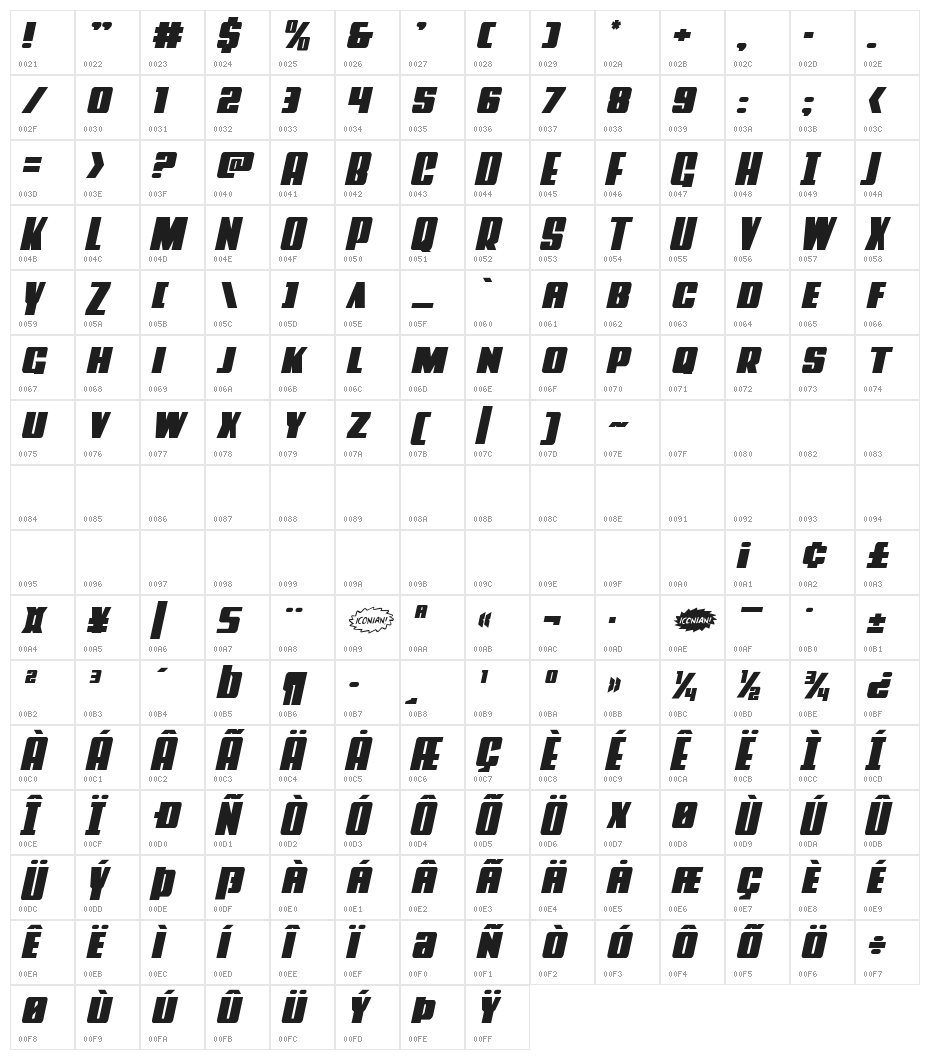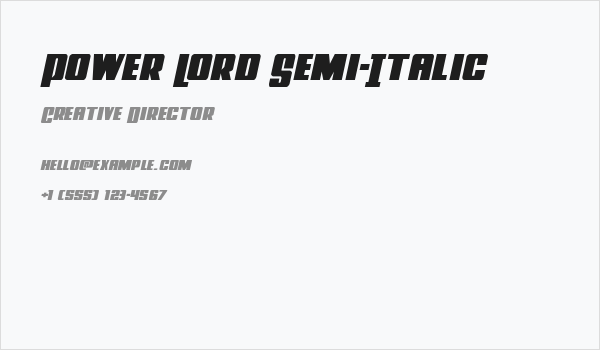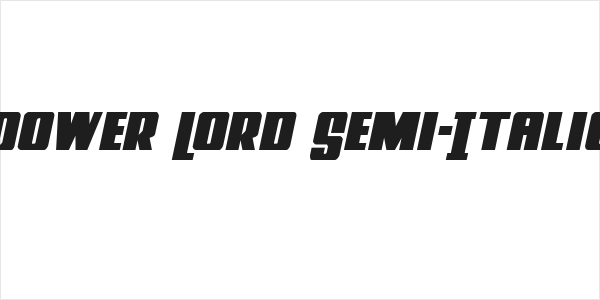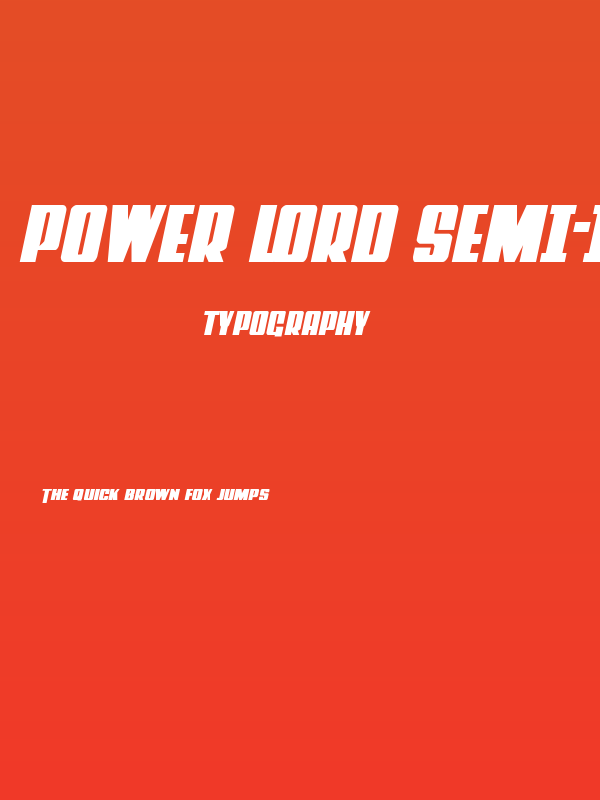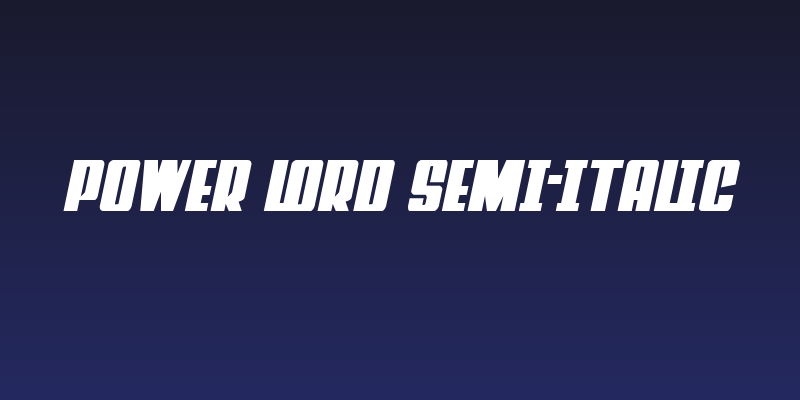
Power Lord Semi-Italic Font
Power Lord Semi-Italic Description
This font features a bold and dynamic style with a strong presence. The characters are slightly italicized, giving them a forward-leaning appearance that suggests movement and energy. The strokes are thick and consistent, providing a sense of power and stability. The overall design is modern and impactful, making it suitable for attention-grabbing headlines or titles. The uppercase and lowercase letters maintain a uniform width, contributing to a cohesive look. The numbers and special characters are designed to match the boldness of the alphabet, ensuring a harmonious appearance across all elements.
| Proposed Projects | Ideal for sports branding, action movie posters, or dynamic advertising campaigns. |